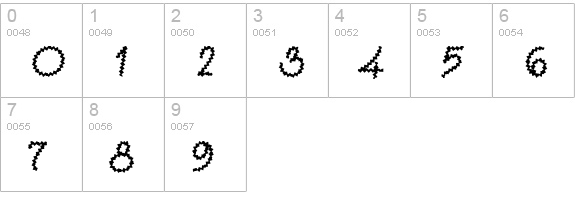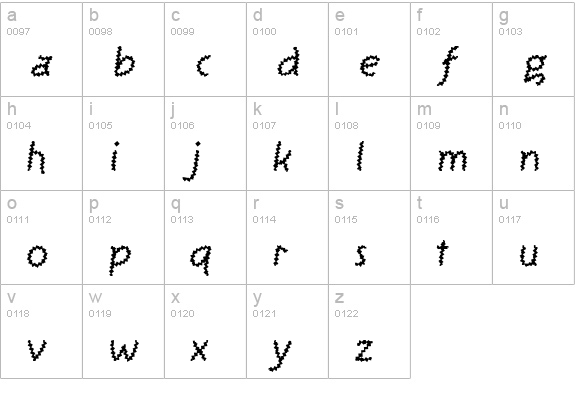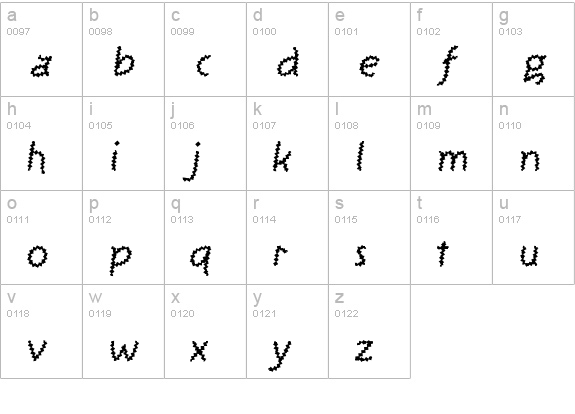
KnewFontJagged Font Details
Introducing KnewFontJagged, a stunningly unique and edgy font that is sure to add a touch of boldness to your design projects. This font boasts jagged edges and sharp angles, giving it a distinctive and eye-catching appearance that will make your text stand out from the crowd. KnewFontJagged is the perfect choice for those looking to make a statement with their typography. Whether you're designing a logo, poster, or website, this font will add a touch of edginess and creativity to your work. Its unconventional design is sure to capture attention and leave a lasting impression on your audience. What makes KnewFontJagged even more appealing is that it is completely free to download. Yes, you read that right – this stunning font is available at no cost to you. Simply head over to FontsMarket.com and grab your copy today. With just a few clicks, you'll have access to this incredible font that will elevate your design projects to new heights. So why wait? Take advantage of this fantastic opportunity to enhance your designs with KnewFontJagged. Download it now and let your creativity run wild. With its bold and striking appearance, this font is bound to make a lasting impact on your audience. Don't miss out on the chance to add a touch of uniqueness to your designs – get KnewFontJagged today, and let your creativity soar.